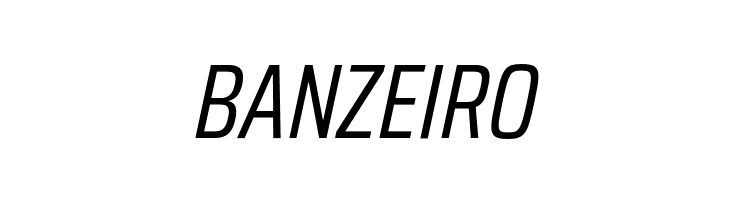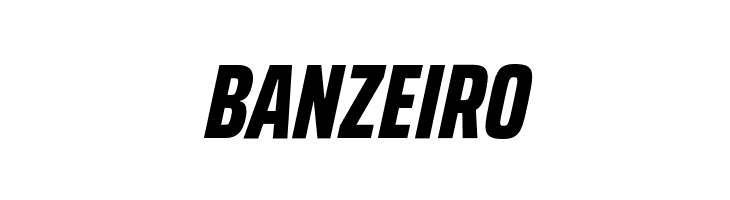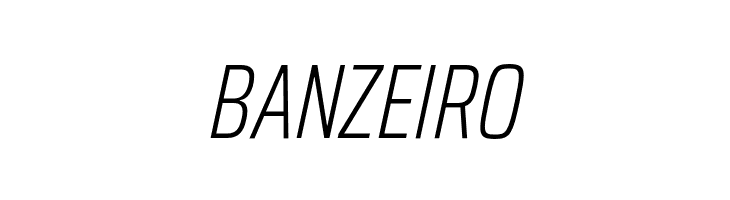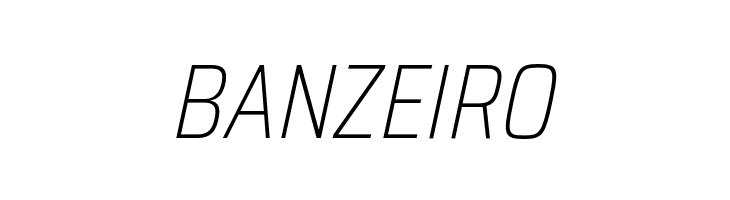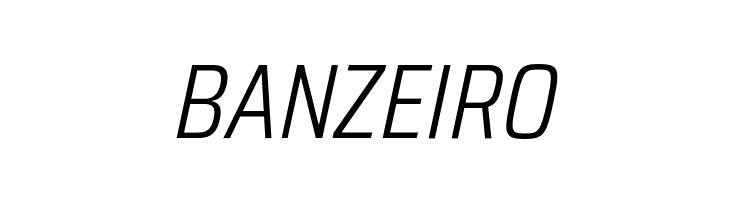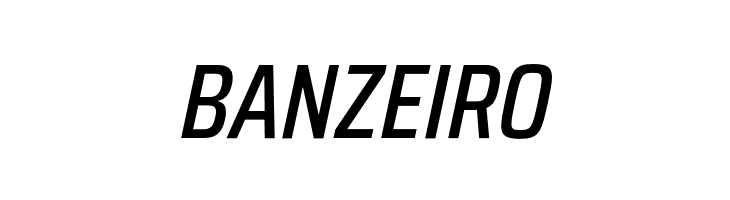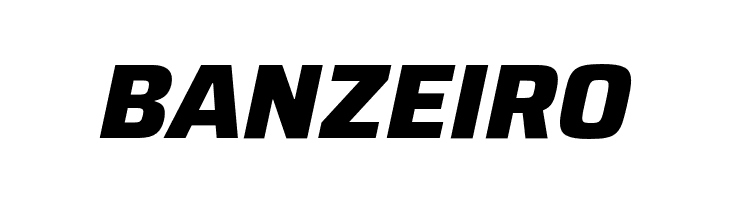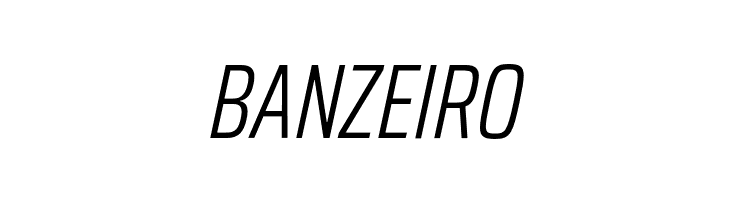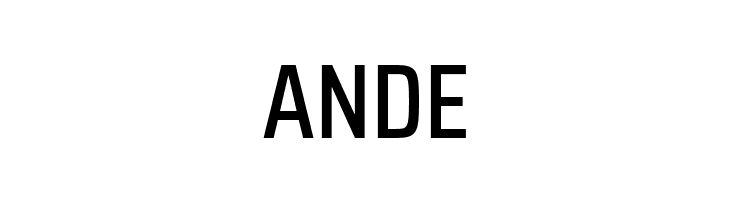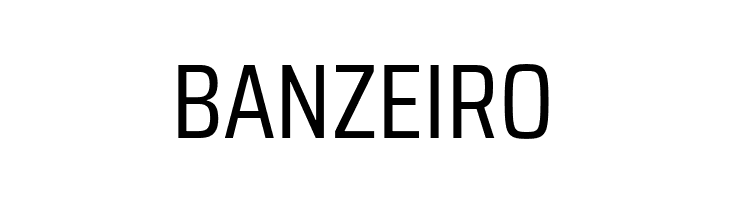
A sleek, modern, and condensed italic font with a light weight.
A modern, condensed sans-serif font with a clean and professional appearance.
A modern, condensed sans-serif font with medium weight and clear readability.
A modern, condensed italic font with medium contrast and sleek design.
A modern, condensed sans-serif font with a clean, geometric style.
A modern, condensed font with clean, geometric lines and uniform stroke width.
A modern, condensed typeface with bold, clear characters and uniform stroke widths.
A modern, condensed font with bold, uniform strokes and a sleek design.
A sleek, modern, semi-bold italic font with a condensed structure and medium contrast.
A sleek, modern, and condensed thin font with a minimalist aesthetic.
A modern, thin, and condensed font with clean lines and excellent legibility.
A sleek, modern, and condensed italic font with thin lines.
A bold, assertive typeface with thick strokes and a strong presence.
A bold, modern typeface with thick strokes and a strong presence.
A bold, italic font with a modern and dynamic style.
A bold, extra-condensed font with a modern and impactful style.
A bold, extra condensed font with high contrast and minimal spacing.
A bold, condensed, and italic font with high contrast and tight spacing, perfect for impactful designs.
A bold, extra-condensed typeface with a modern and impactful style.
A bold, extra condensed font with a modern and impactful style.
A bold, italic, extra-condensed font with high contrast and tight spacing.
A bold, condensed sans-serif font with a modern and assertive style.
A bold, extra-condensed font ideal for impactful headlines and titles.
A bold, extra-condensed italic font with a dynamic and modern style.
A modern, extra condensed sans-serif font with a sleek, minimal design.
A sleek, extra-condensed, extra-light italic font with a modern aesthetic.
A sleek, italicized, extra-condensed font with a modern and dynamic style.
A sleek, extra condensed font with a modern, minimalist design.
A sleek, modern, extra condensed font with a minimalist design.
A sleek, extra condensed, light italic font with a modern and dynamic style.
A modern, condensed typeface with clean lines and uniform stroke width.
A modern, extra condensed typeface with uniform stroke width and high legibility.
A sleek, extra condensed italic font with a modern and dynamic style.
A modern, extra condensed sans-serif font with uniform stroke width.